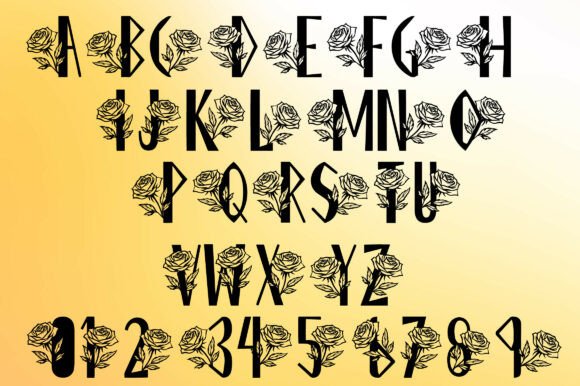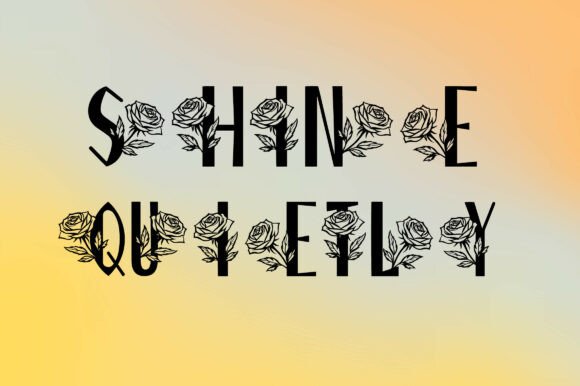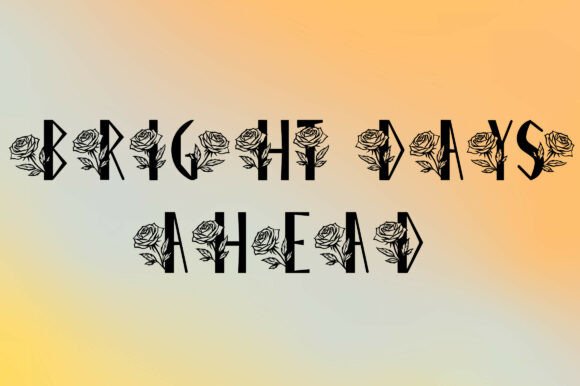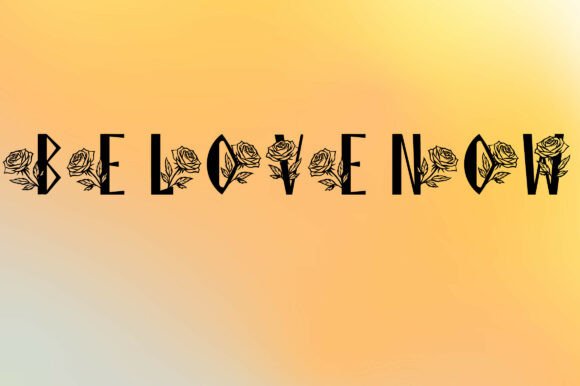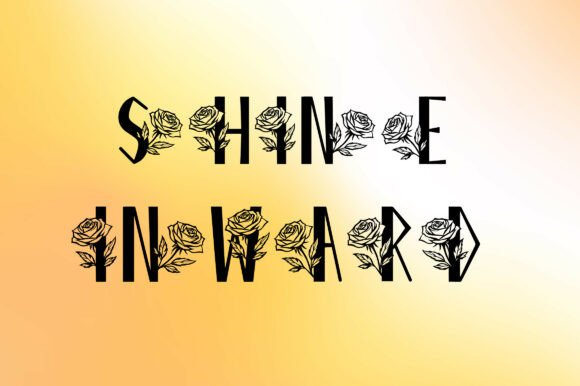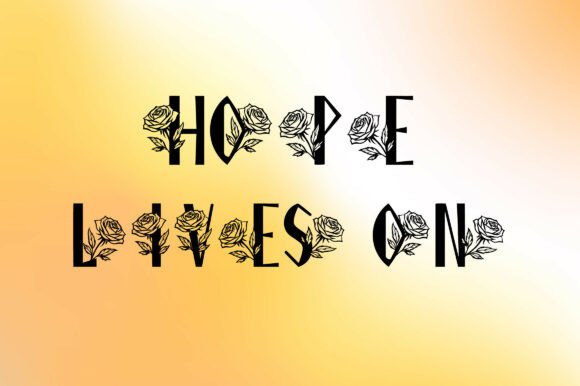
AONNE Font: Elevate Your Designs with Elegant Decorative Typography
Are you searching for a font that can add a touch of romance, elegance, and playfulness to your creative projects? Look no further than AONNE, a charming decorative typeface inspired by the beauty of rose blossoms, floral accents, and artistic details. In this article, we’ll explore the features and benefits of AONNE Font, and how it can elevate your designs to the next level.
What is AONNE Font?
AONNE Decorative Flower Rose Style Fonts is a stylish and whimsical typeface that captures the essence of romantic floral design. Its unique and elegant appearance makes it perfect for a wide range of creative projects, from logos and branding to invitations, posters, packaging, and social media graphics. With its uppercase English letters A-Z and numbers 0-9, AONNE offers a versatile and creative solution for designers and crafters.
Key Features of AONNE Font
- Romantic and Elegant Design: AONNE Font boasts a beautiful, rose-inspired design that exudes romance and sophistication.
- Playful yet Stylish: The font’s playful and artistic details bring warmth, happiness, and personality to every design.
- Uppercase English Letters and Numbers: AONNE features uppercase English letters A-Z and numbers 0-9, making it easy to use for a variety of design projects.
- Perfect for Various Design Projects: AONNE is ideal for logos, branding, invitations, posters, packaging, Valentine’s designs, social media graphics, greeting cards, and more.
Benefits of Using AONNE Font
AONNE Font offers numerous benefits for designers and crafters, including:
- Unique and Creative Designs: AONNE’s distinctive design helps your projects stand out with beauty, romance, and imagination.
- Time-Saving: With AONNE, you can quickly create stunning designs without spending hours on tedious typography.
- Versatility: AONNE can be used for a wide range of design projects, from digital to print.
How to Use AONNE Font in Your Designs
Using AONNE Font in your designs is easy and straightforward. Here are some ideas to get you started:
- Logos and Branding: Create a memorable and elegant logo for your business or brand with AONNE.
- Invitations and Greeting Cards: Add a touch of romance and whimsy to your invitations and greeting cards with AONNE.
- Posters and Packaging: Use AONNE to create eye-catching posters and packaging that stands out from the crowd.
- Social Media Graphics: Elevate your social media graphics with AONNE’s stylish and elegant typography.
Tips and Tricks for Getting the Most Out of AONNE Font
To get the most out of AONNE Font, here are some tips and tricks to keep in mind:
- Experiment with Colors and Textures: AONNE looks great in a variety of colors and textures, so don’t be afraid to experiment and find the perfect combination for your design.
- Mix and Match with Other Fonts: Combine AONNE with other fonts to create a unique and visually appealing design.
- Pay Attention to Kerning and Spacing: Make sure to adjust the kerning and spacing to ensure your text looks elegant and refined.